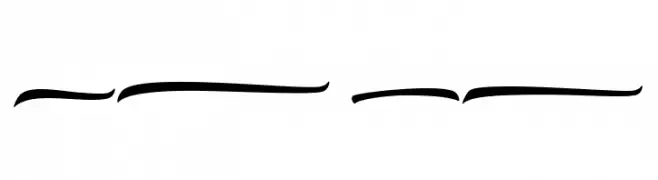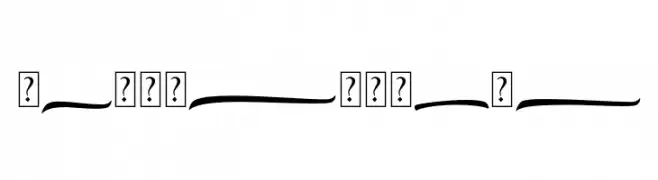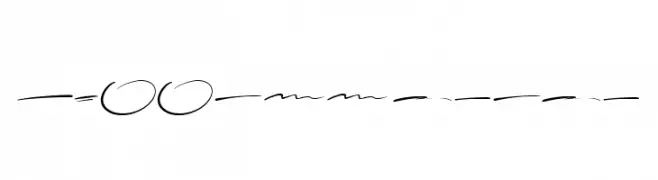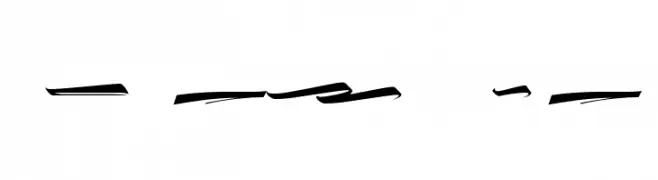
An elegant script font with flowing, ornate letterforms and intricate swashes.
An elegant script font with intricate loops and swashes, ideal for formal designs.
An elegant script font with intricate swashes and flowing lines.
An ornate script font with intricate swashes and flourishes.
An elegant, flowing script font with intricate loops and swashes.
An elegant and intricate script font with flowing, interconnected letters and elaborate swashes.
An elegant script font with flowing, ornate swashes and high contrast strokes.
An elegant, flowing script font with intricate loops and swashes.
A bold, artistic script font with elegant curves and dramatic swashes.
A flowing, cursive script font with elegant swashes and a modern twist.
A bold, elegant script font with ornate swashes and flowing curves.
An ornate and flowing decorative font with elegant swashes.
A decorative script font with elegant loops and swashes, perfect for artistic projects.
An elegant calligraphy font with flowing cursive letters and decorative swashes.
A flowing, elegant script font with intricate loops and swashes.
An elegant script font with graceful loops and swashes, perfect for decorative use.
A classic, elegant script font with flowing curves and intricate swashes.
An elegant script font with high contrast and ornate swashes.
An elegant script font with flowing curves and sophisticated swashes.
An elegant script font with intricate swashes and high contrast, perfect for luxurious and formal designs.
An elegant, cursive script font with ornate swashes and flourishes.
An elegant script font with flowing, cursive style and intricate swashes.
An elegant script font with flowing, cursive letters and intricate swashes.
A flowing, cursive script font with elegant loops and swashes.
A decorative script font with elegant swashes and flowing letterforms.
A vintage, distressed font with decorative serifs and swashes.